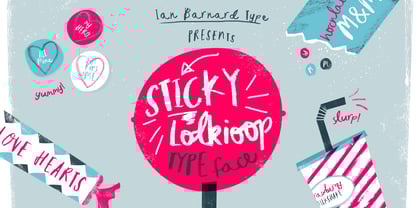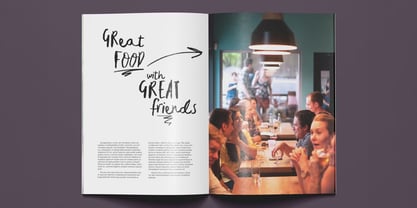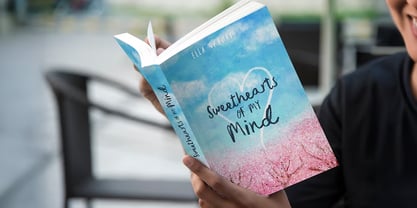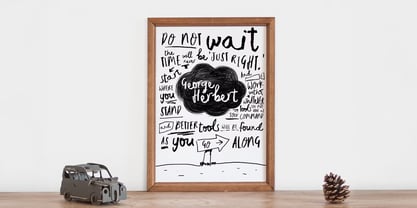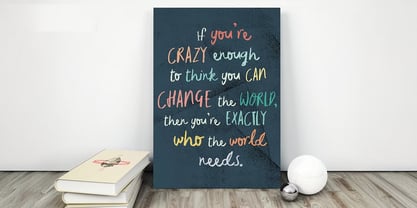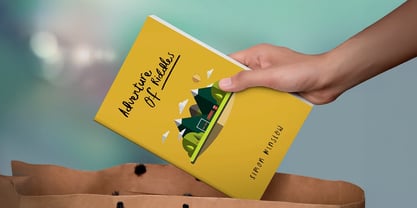
Sticky Lollipop
by Ian Barnard
The Sticky Lollipop Font Family was designed by Ian Barnard and published by Ian Barnard. Sticky Lollipop contains 1 styles. More about this family
Sticky Lollipop is a playful, hand-drawn typeface designed to perfectly complement an inky, illustrated style. Born from a unique find—a vintage chinagraph pencil stashed away at my grandparents' house—the font carries a delightfully waxy, textured look. The resulting letters feature varying weights and imperfect lines, giving them a genuinely handwritten quality that's both charming and nostalgic. It’s the perfect choice for designs that need a sweet, whimsical, and truly original touch.